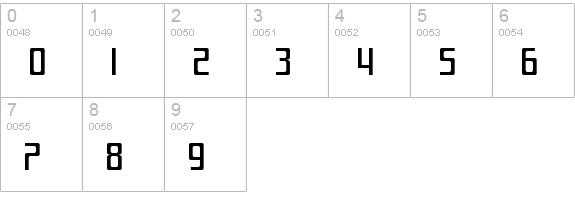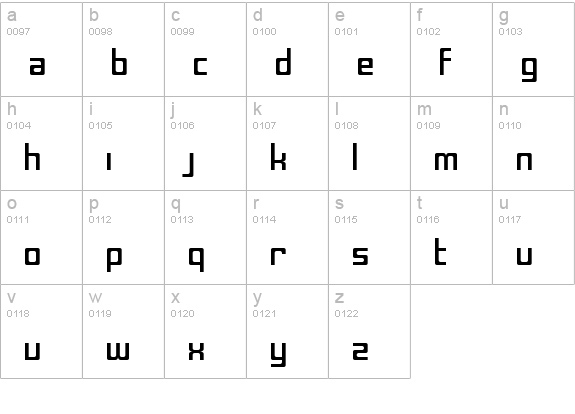
SF Laundromatic Extended Font Details
SF Laundromatic Extended is a distinctive, extended-width variant in the SF typeface family \xE2\x80\x94 well suited to design and typography projects.
SF Laundromatic Extended font is a versatile and stylish typeface that is perfect for adding a touch of modernity to your designs. With its clean lines and geometric shapes, this font is ideal for a wide range of applications, from branding and logo design to headlines and body text. The extended version of SF Laundromatic offers an even greater variety of weights and styles, giving you even more flexibility in your creative projects. Whether you're looking for a bold and impactful look or a more subtle and refined aesthetic, this font has got you covered. One of the best things about SF Laundromatic Extended is that it is completely free to download. That's right, you can get your hands on this stunning font without spending a dime. Simply head over to FontsMarket.com and start exploring the numerous weights and styles available for download. Not only does SF Laundromatic Extended offer a wide range of options, but it also delivers in terms of quality. The font is well-crafted and meticulously designed to ensure a seamless reading experience. Its legibility and clarity make it an excellent choice for both print and digital applications. Whether you're a professional designer or a hobbyist, SF Laundromatic Extended is a font that should not be missed. Its modern and versatile design, combined with the fact that it is freely available to download, makes it an exceptional choice for all your creative needs. Don't miss out on this fantastic opportunity to enhance your designs with a high-quality, free font. Visit FontsMarket.com today and elevate your typography game with SF Laundromatic Extended.